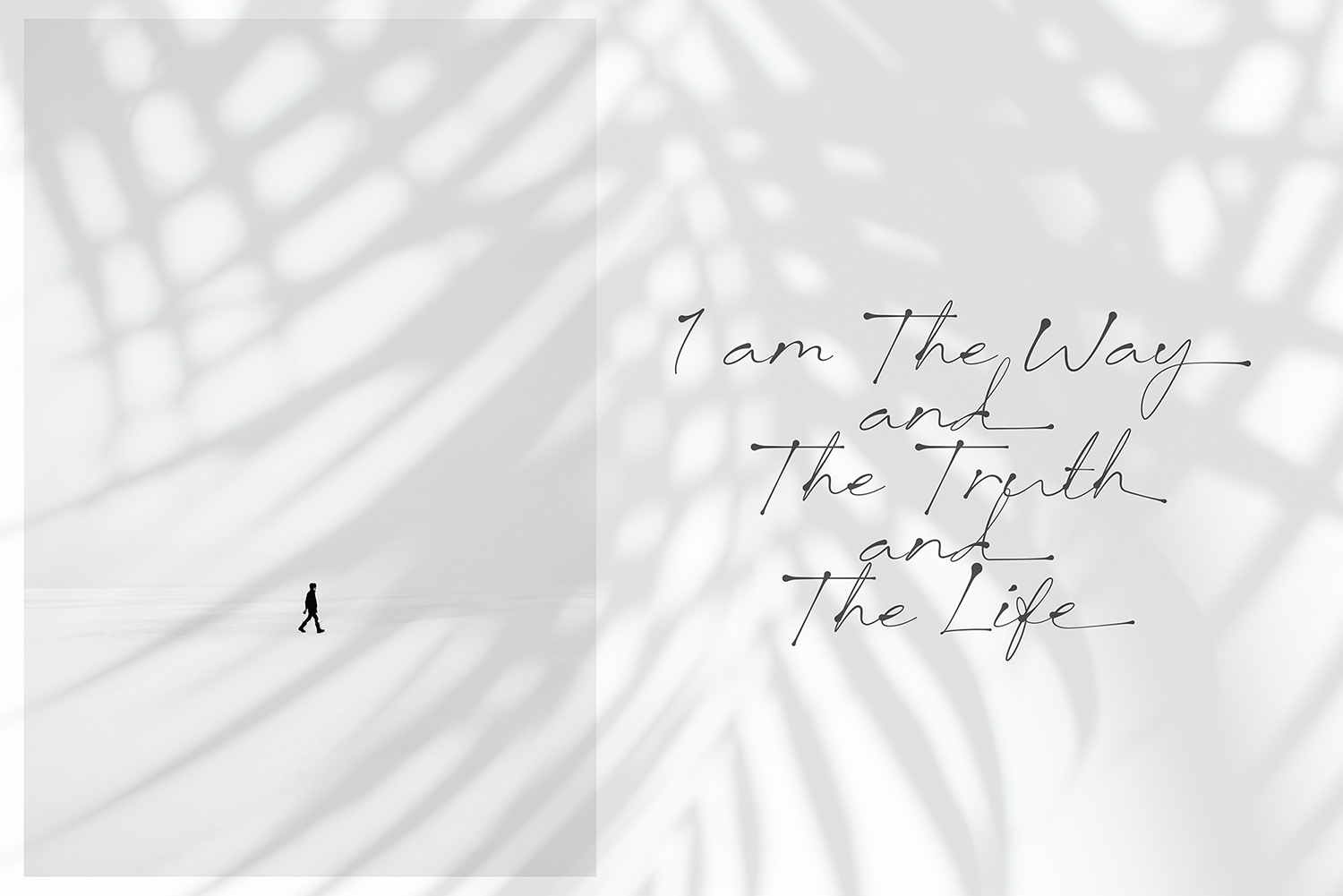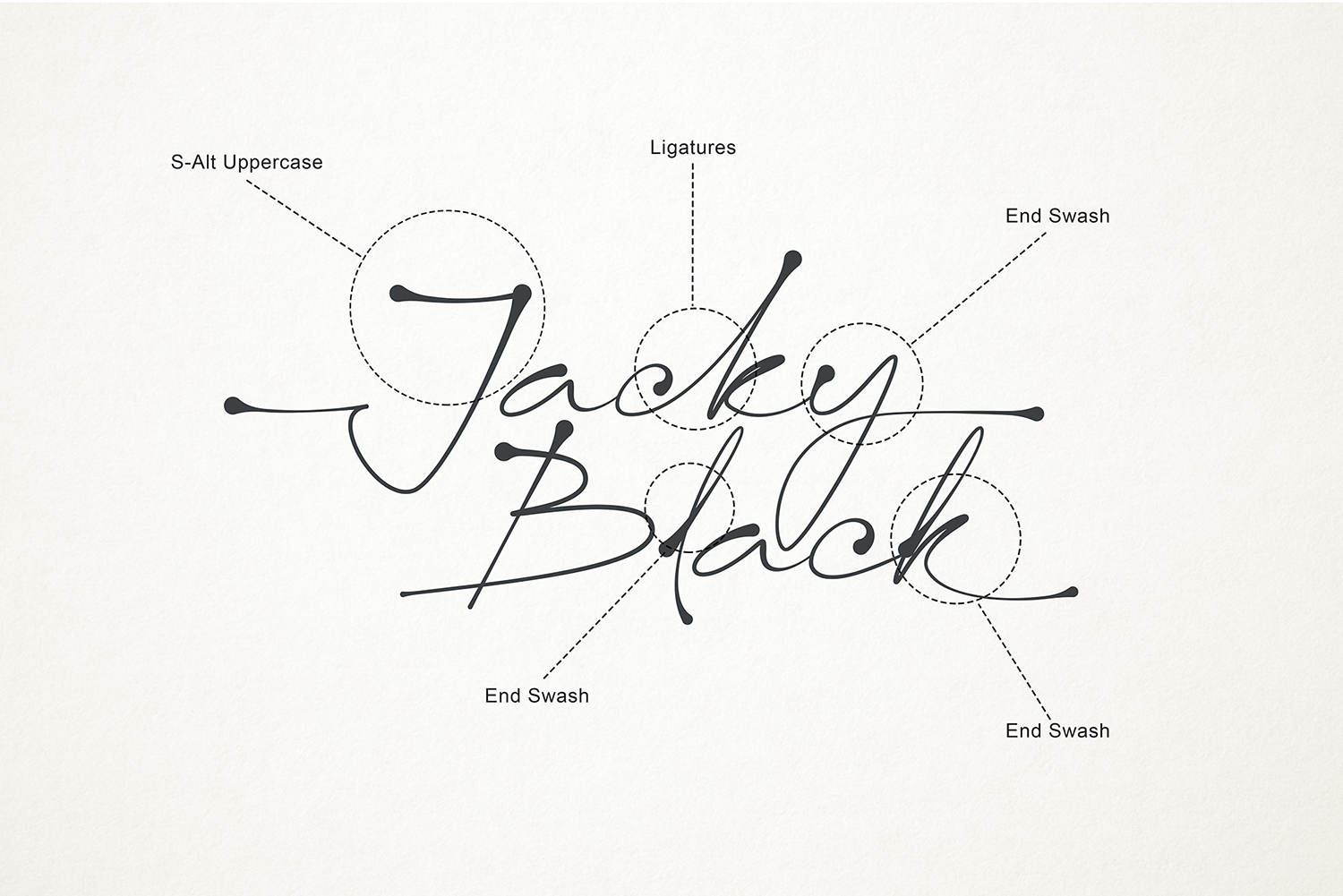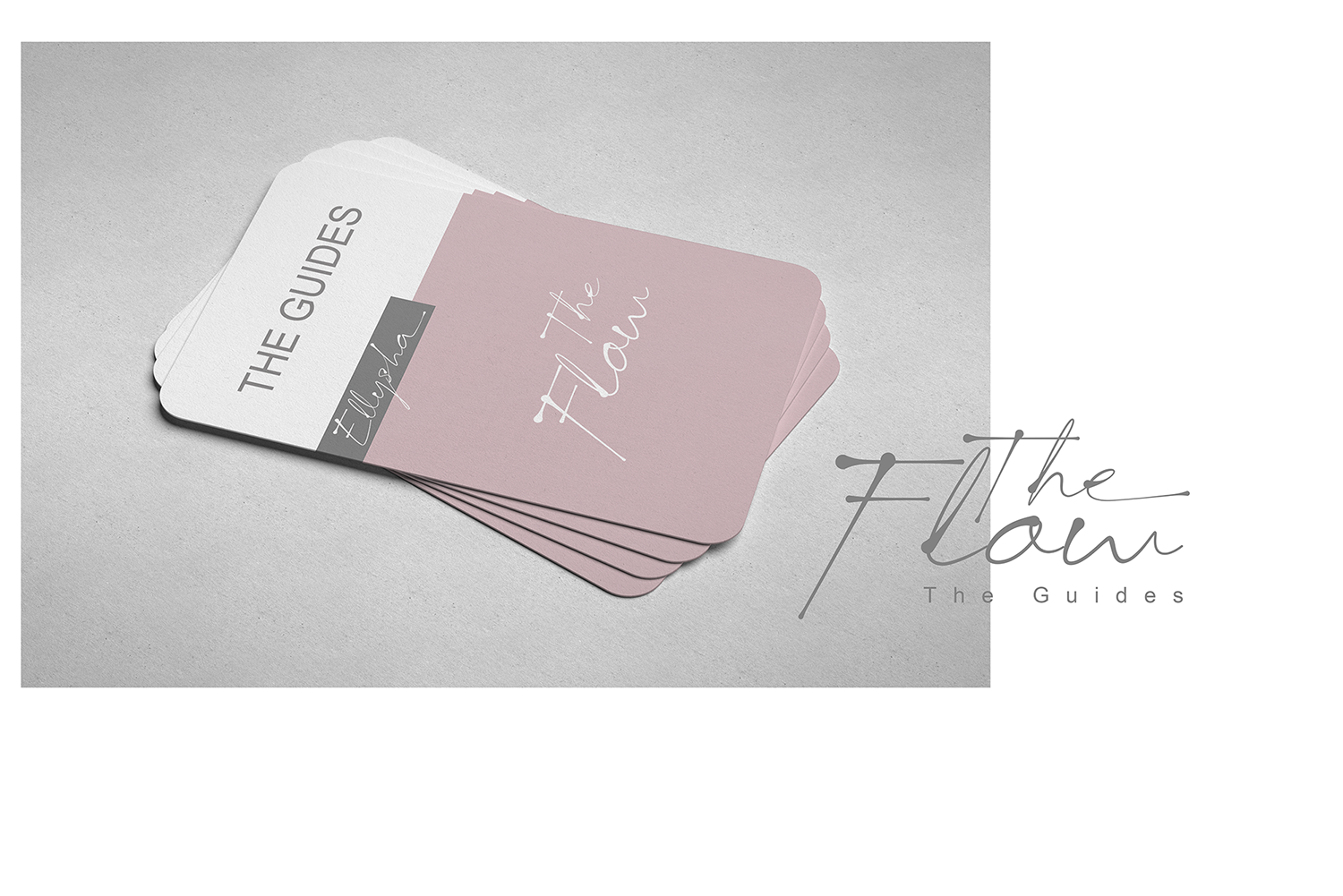
Jacky Black Free Font
Jacky Black Free Font is a handwritten ink style letters that have a simple and natural shape, but still, look elegant and exclusive. Jacky Black, It is suitable for use in your creative ideas, who want unique and natural-looking writing to support your beautiful design. This free typeface was designed by talented DLetters .Std. If you like it don’t forget to check out the full version.